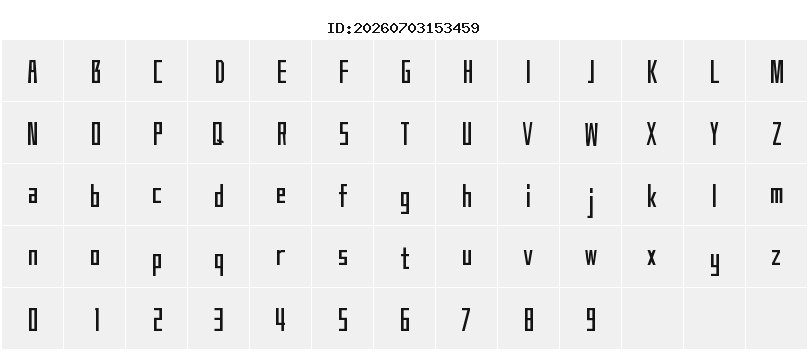
113-上首轩正体 Preview
• Font Name: 113-上首轩正体
• Font ID: 113-SSXuanZhengiTi:Version 6.00
• Full Font Name: 113-上首轩正体
• Version: Version 6.00 July 19, 2024
• PostScript Name: 113-SSXuanZhengiTi
• Character Count: 7569
• Manufacturer: 上首造字
About 113-上首轩正体.ttf
113-上首轩正体.ttf is a modern, elegant sans-serif font designed for ultimate readability and visual harmony. Perfect for branding, headlines, web design, and print materials.